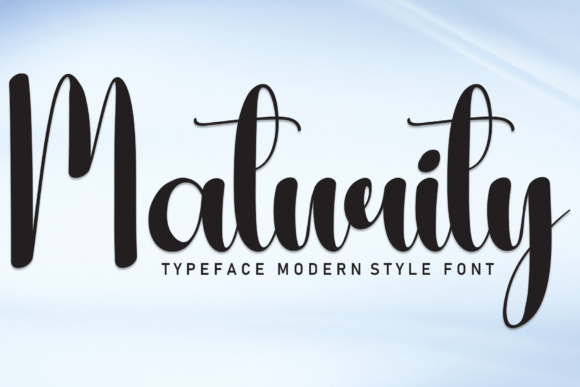
In a realm where words dance with elegance and charm, allow us to introduce Maturity Font, a script font family crafted by the visionary Strongkeng Old. This captivating font exudes a sense of warmth and playfulness, beckoning you to embrace your creative side.
Maturity Font is not merely a collection of letters; it's an artistic expression that breathes life into your designs. Whether it's an intimate wedding invitation, a heartfelt card, or a captivating poster, Maturity Font adds a touch of magic, transforming ordinary words into enchanting messages.
Immerse yourself in the world of Maturity Font, where each stroke and curve is a testament to its creator's passion. The font's enchanting personality shines through in every letter, carrying your words with grace and poise. Experience the joy of crafting designs that resonate with warmth and charm, leaving an indelible mark on the hearts of your audience.
With its effortless flow and impeccable style, Maturity Font is the perfect choice for capturing the essence of Christmas. Its inherent cheerfulness evokes the spirit of the season, making it an ideal font for creating festive designs that spread joy and merriments.
Indulge in the beauty of Maturity Font and let your creativity flourish. Its versatility knows no bounds, allowing you to weave captivating stories through design. From whimsical invitations to heartfelt holiday greetings, Maturity Font adds a touch of enchantment to every project.